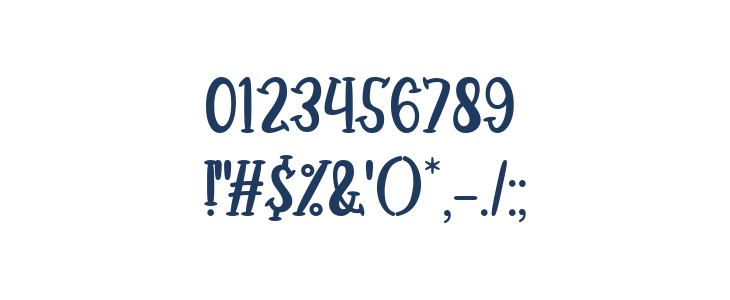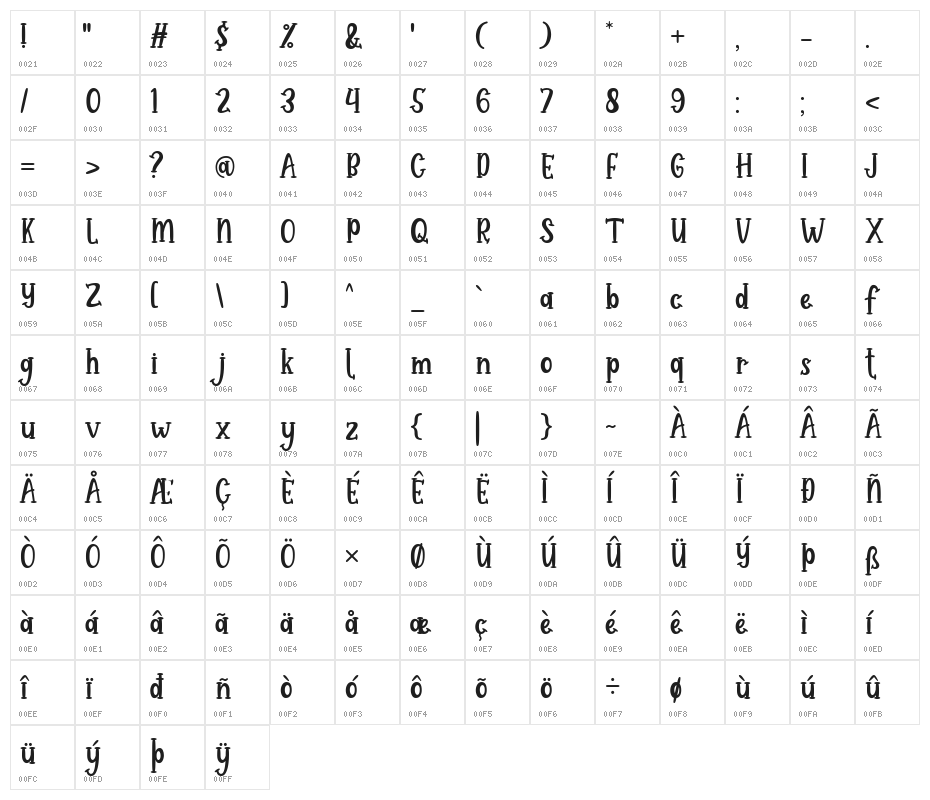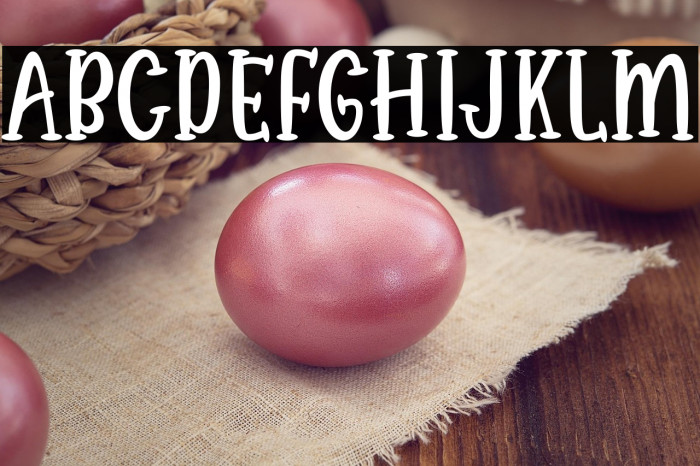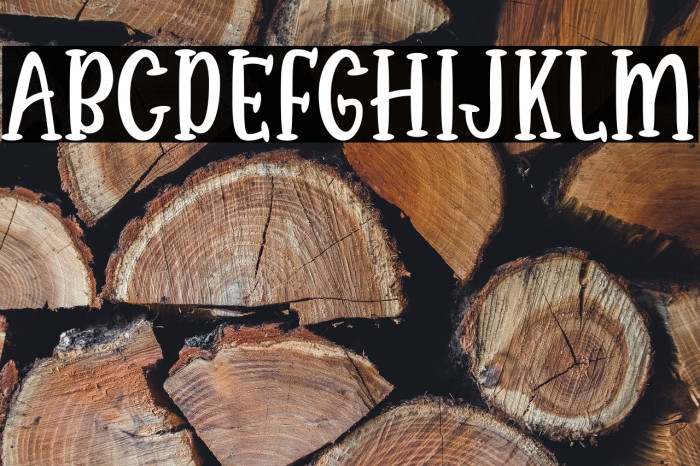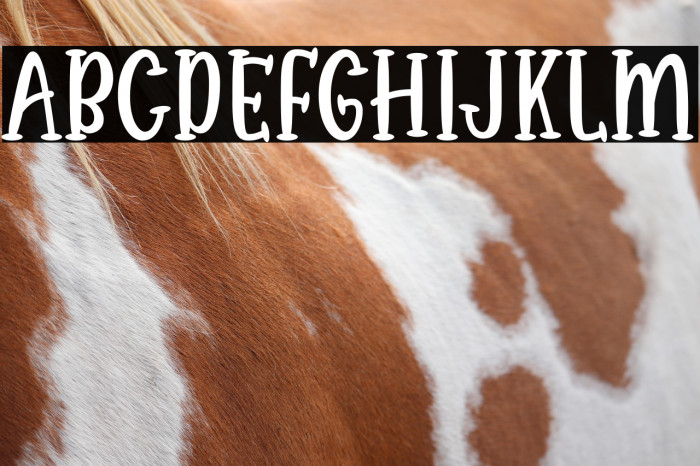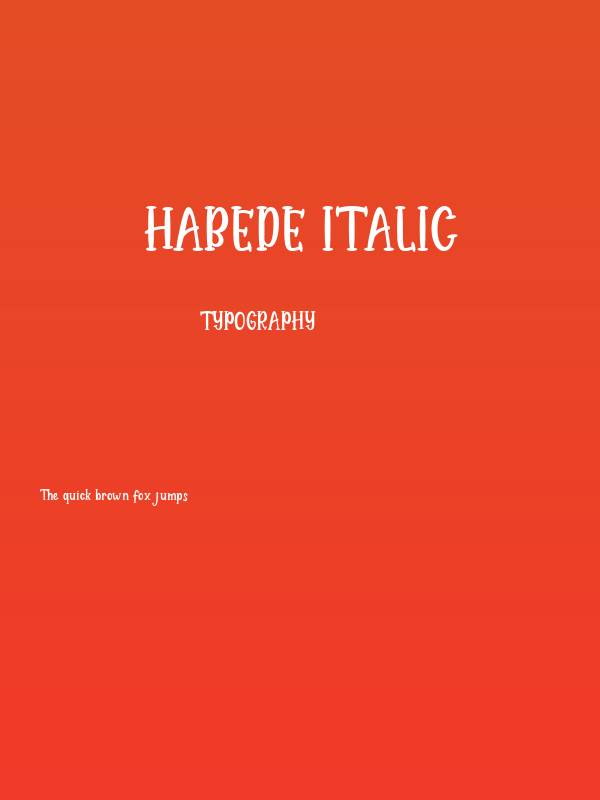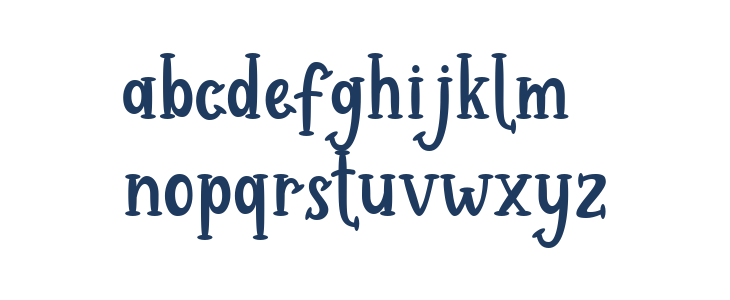
Habede Italic Font
Habede Italic Description
This font features a playful and whimsical style, characterized by its curvy and slightly irregular letterforms. The strokes are moderately thick, giving it a bold appearance, while the slight slant adds a dynamic and lively touch. The uppercase letters are tall and narrow, with a consistent height, while the lowercase letters maintain a similar style with a slightly more relaxed form. The numbers are clear and easy to read, matching the overall playful aesthetic. Special characters are designed with the same whimsical flair, making them stand out. This font is perfect for projects that require a fun and engaging look.
| Proposed Projects | Ideal for children's books, playful branding, greeting cards, and creative posters. |